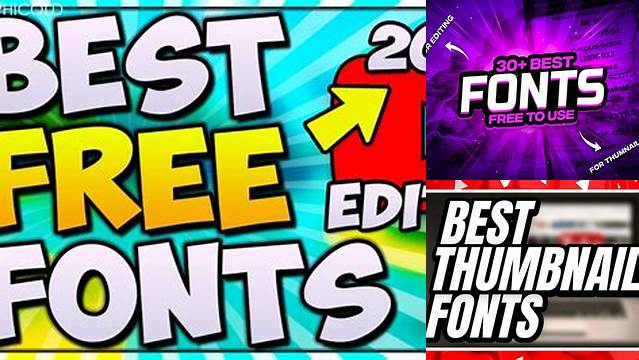
Best Free Fonts For Thumbnails To Grab Attention
Creating eye-catching thumbnails is essential for grabbing attention on platforms like YouTube, social media, and blogs. One of the key elements in a compelling thumbnail is the font you choose. The right font can convey the message effectively, enhance visual appeal, and entice viewers to click. Luckily, numerous resources offer free fonts perfect for thumbnail creation. Let's dive into the world of fonts for thumbnails free, exploring where to find them, what to look for, and how to use them effectively.
Google Fonts is a treasure trove of free, open-source fonts that are easy to access and use. With a vast library of typefaces, you can find a variety of styles, from bold and modern to classic and elegant. The best part? Google Fonts integrates seamlessly with web design tools, making it simple to incorporate your chosen font into your thumbnail design. When selecting a font from Google Fonts, consider its readability and impact. Choose fonts that are clear and legible even at smaller sizes, ensuring that your message is easily conveyed to your audience. Experiment with different font pairings to create a visually appealing and cohesive design that captures attention and draws viewers in.
Moreover, Google Fonts provides helpful filtering options to narrow down your search. You can filter fonts by categories such as serif, sans-serif, display, and handwriting, as well as by properties like thickness, slant, and width. This makes it easier to find fonts that match your specific design preferences and branding guidelines. Additionally, Google Fonts offers valuable insights into font pairings, suggesting complementary fonts that work well together. By leveraging these resources, you can create professional-looking thumbnails that effectively communicate your message and attract viewers.
Furthermore, DaFont allows you to filter fonts based on various criteria, such as popularity, recent additions, and specific themes. This makes it easier to discover trending fonts and find inspiration for your thumbnail designs. You can also create collections of your favorite fonts to save them for future use. By exploring the diverse selection of fonts available on DaFont, you can find unique and creative typefaces that set your thumbnails apart from the competition. Just remember to always double-check the licensing terms before using any font in your commercial projects.
What to Look for in a Thumbnail Font
Choosing the right font for your thumbnail involves more than just picking something that looks nice. Here are some key factors to consider:
Readability
Readability is paramount. If viewers can't easily read the text on your thumbnail, they're less likely to click. Opt for fonts that are clear, legible, and easy on the eyes, even at smaller sizes. Avoid overly decorative or intricate fonts that can be difficult to decipher at a glance. Choose fonts with clean lines and distinct letterforms to ensure that your message is easily understood by your target audience. Experiment with different font sizes and weights to find the optimal balance between readability and visual impact. Consider using a contrasting background color to further enhance readability and make the text stand out. By prioritizing readability, you can effectively communicate your message and attract more viewers to your content.
Impact
Your font should make an impact and grab attention. Bold fonts are often a good choice, but consider the overall style and tone of your video. A playful video might benefit from a more whimsical font, while a serious topic might call for a more professional and authoritative typeface. Choose fonts that align with your brand identity and the message you're trying to convey. Consider using contrasting font colors and sizes to create visual interest and highlight key information. Experiment with different font combinations to find the perfect balance between impact and readability. By carefully selecting fonts that make an impact, you can create thumbnails that stand out from the crowd and entice viewers to click.
In conclusion, finding the perfect fonts for thumbnails free involves exploring resources like Google Fonts, DaFont, and Font Squirrel. Consider readability, impact, and scalability when making your selection, and follow best practices for using fonts effectively in your designs. With the right approach, you can create thumbnails that grab attention and boost your content's visibility.